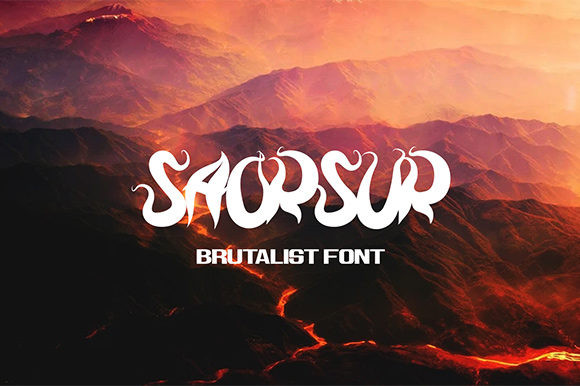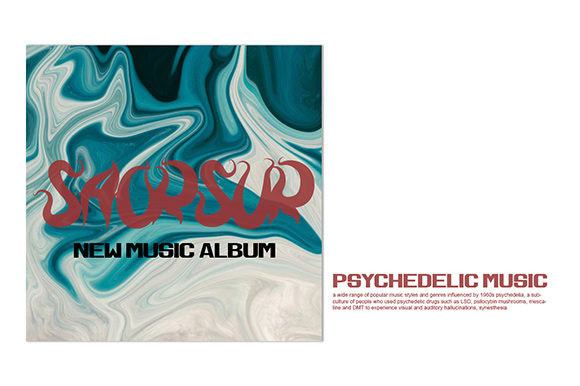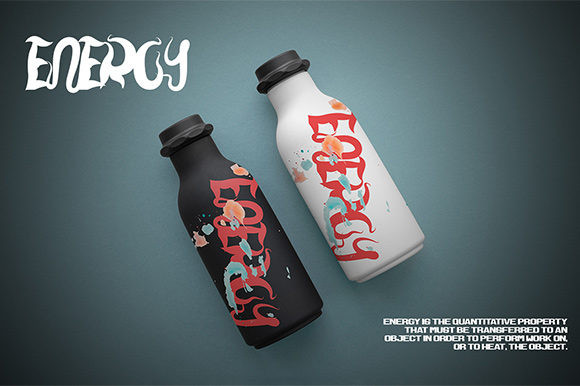
Saorsur Font
Saorsur is a unique display font. This font has a psychedelic style that makes it perfect for posters, music albums, headlines, and much more!